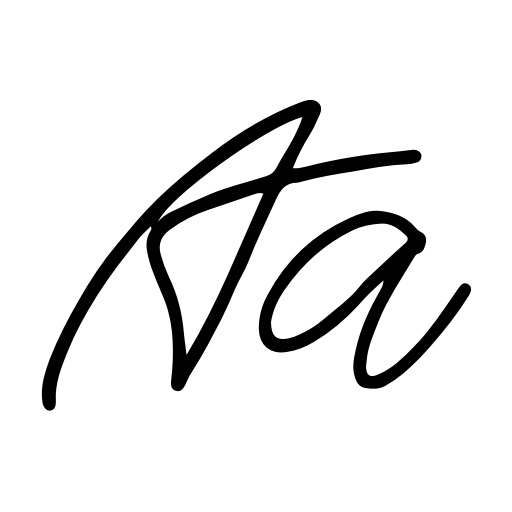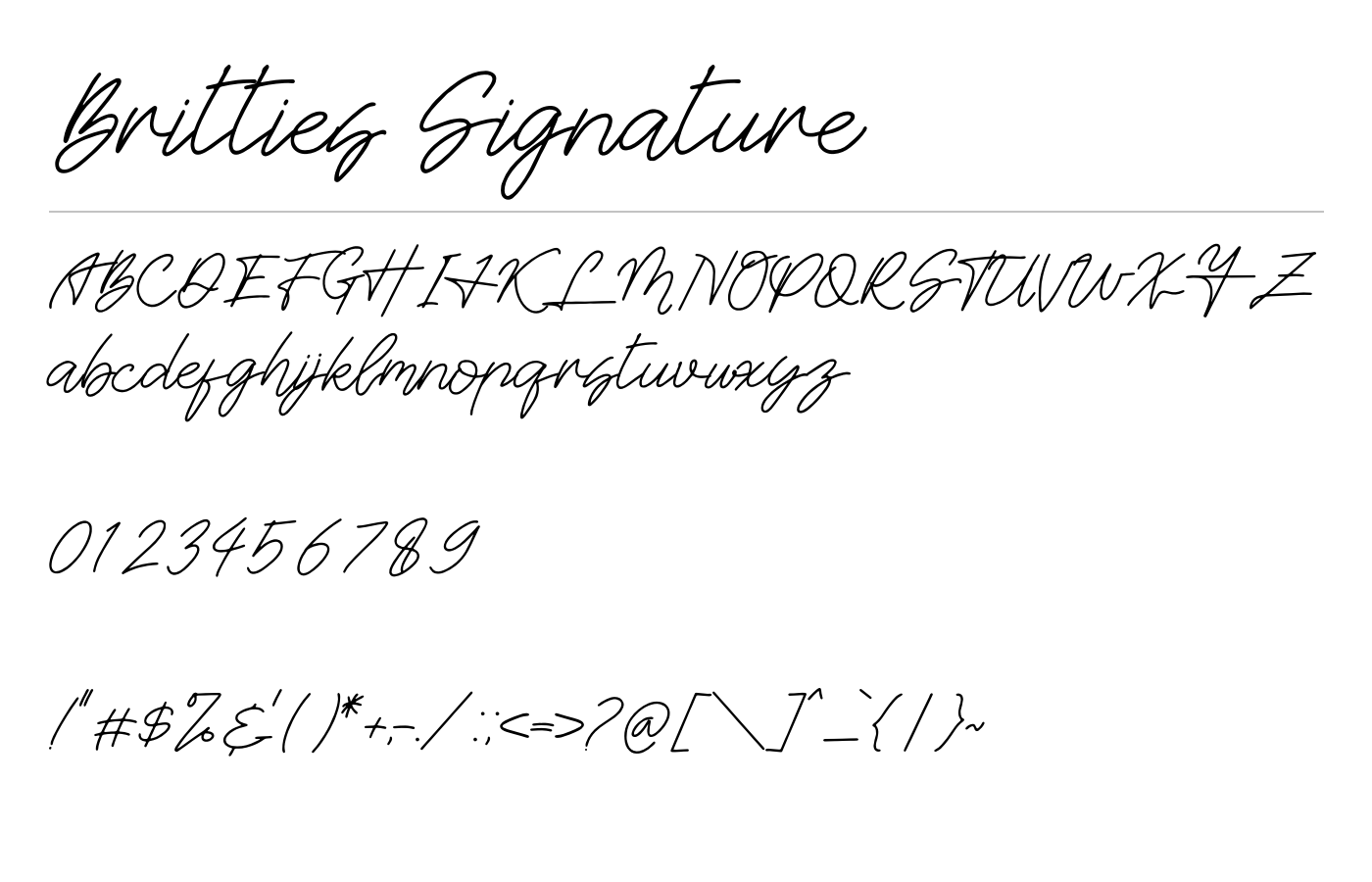
Britties Signature Font is a delicate, handwritten script that captures the natural flow and elegance of personal handwriting. Its thin, slightly irregular strokes and airy spacing make it perfect for adding a sophisticated, intimate touch to branding, invitations, or editorial design. This font works beautifully where a modern, stylish, and approachable feel is desired.
Britties Signature Font
About Britties Signature Font
| Font family | Britties Signature Font |
| Designer | Nanang Jamaludin |